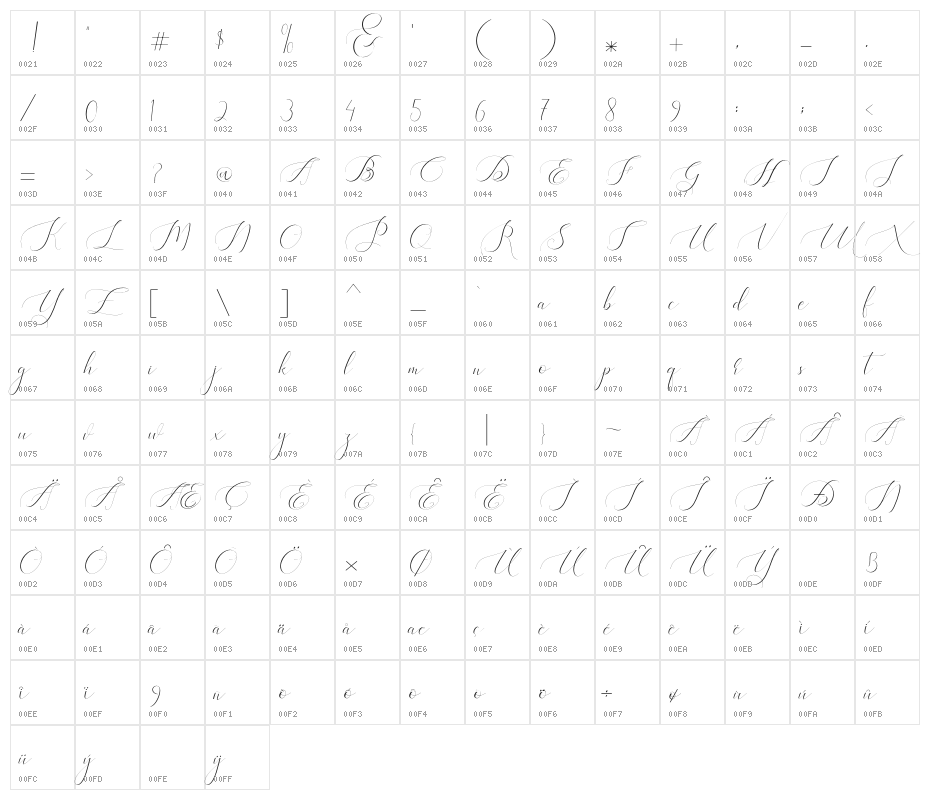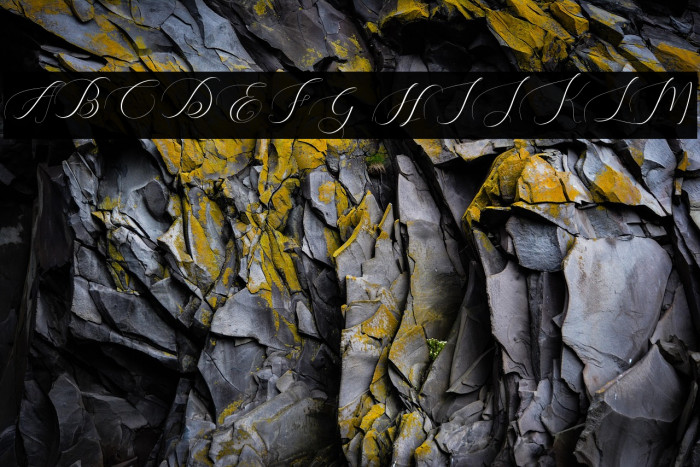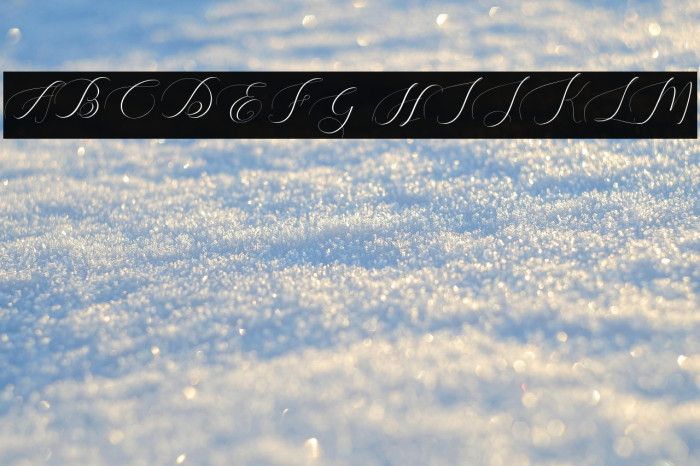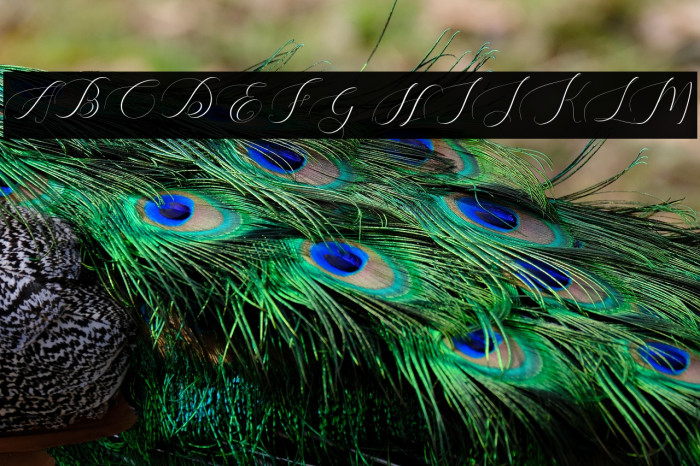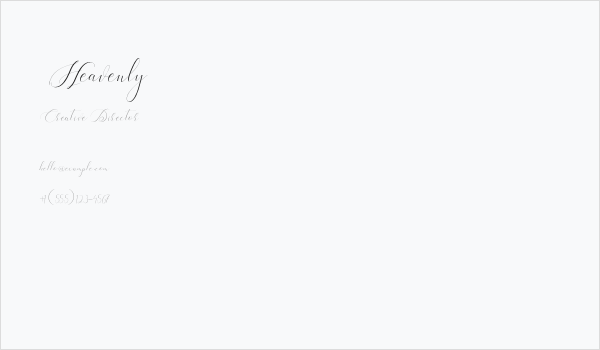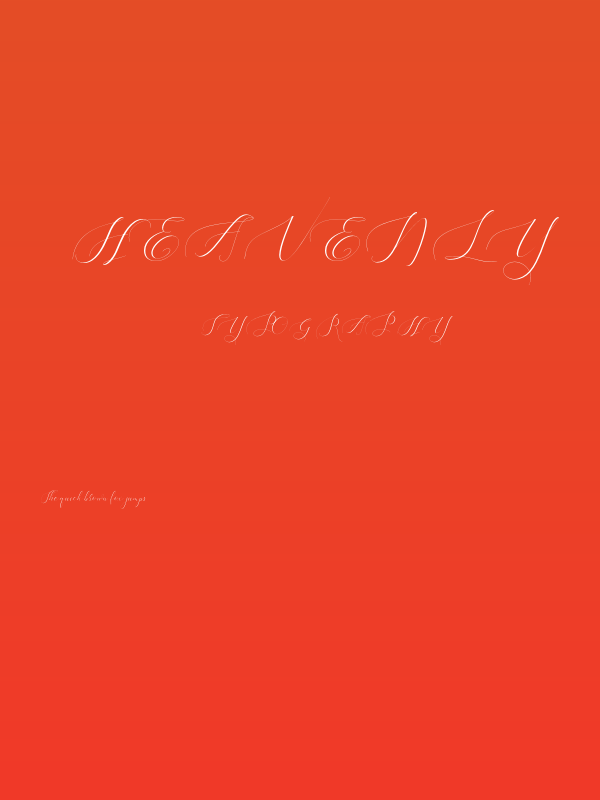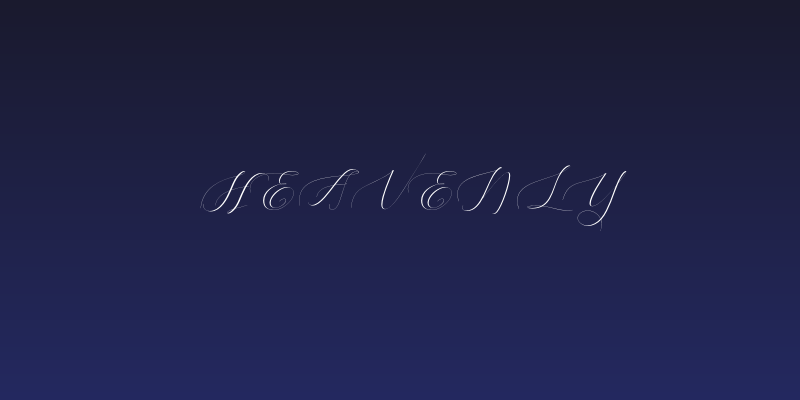
Heavenly Font
Heavenly Description
This elegant script font features graceful, flowing lines and a sophisticated style. The uppercase letters are characterized by their delicate curves and intricate loops, giving a sense of fluidity and movement. The lowercase letters maintain a consistent style, with elongated ascenders and descenders that add to the font's refined appearance. The numerals are slender and stylish, complementing the overall aesthetic. Special characters are thoughtfully designed, maintaining the font's cohesive look. This font exudes a sense of luxury and elegance, making it ideal for high-end branding and design projects.